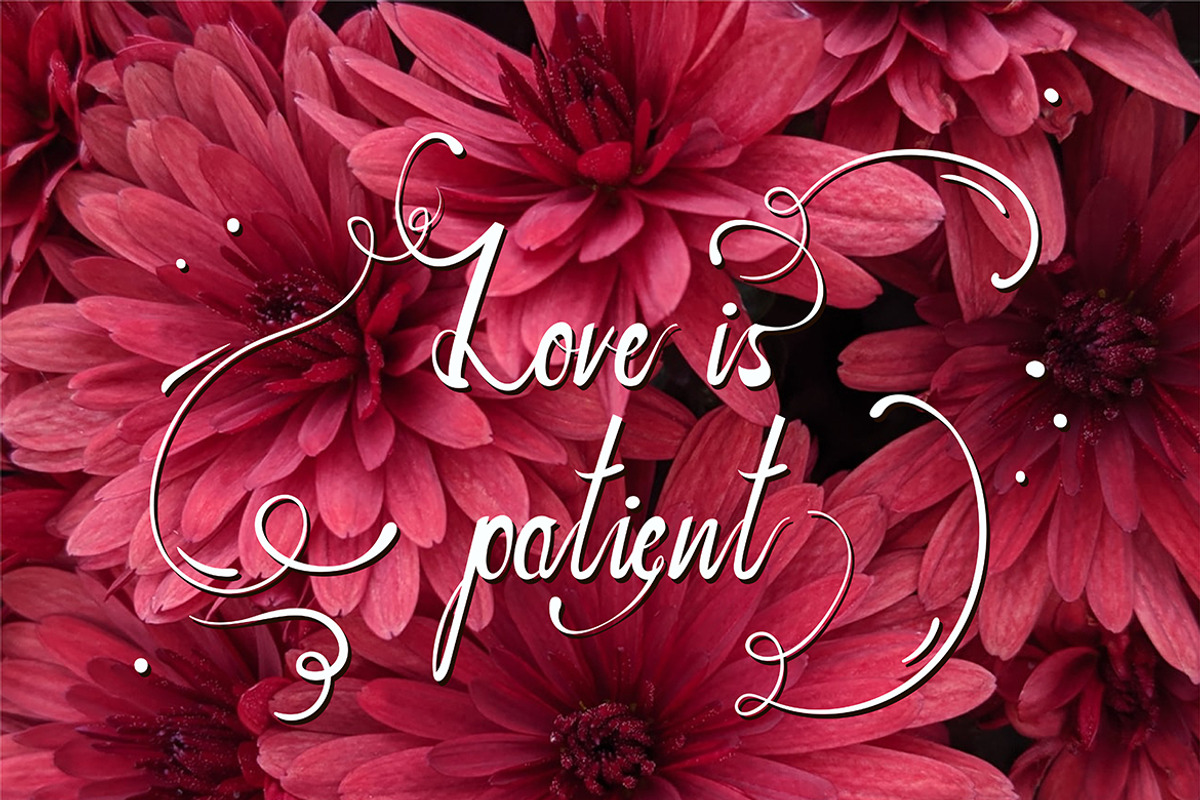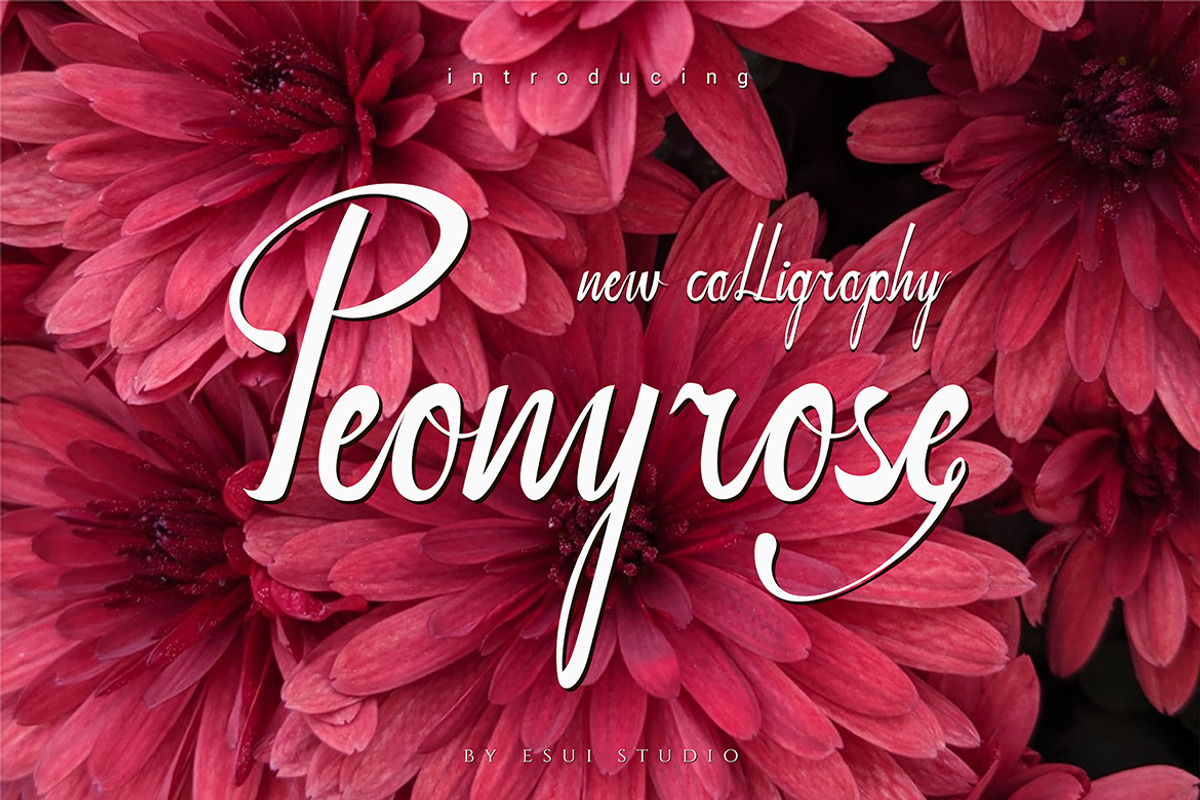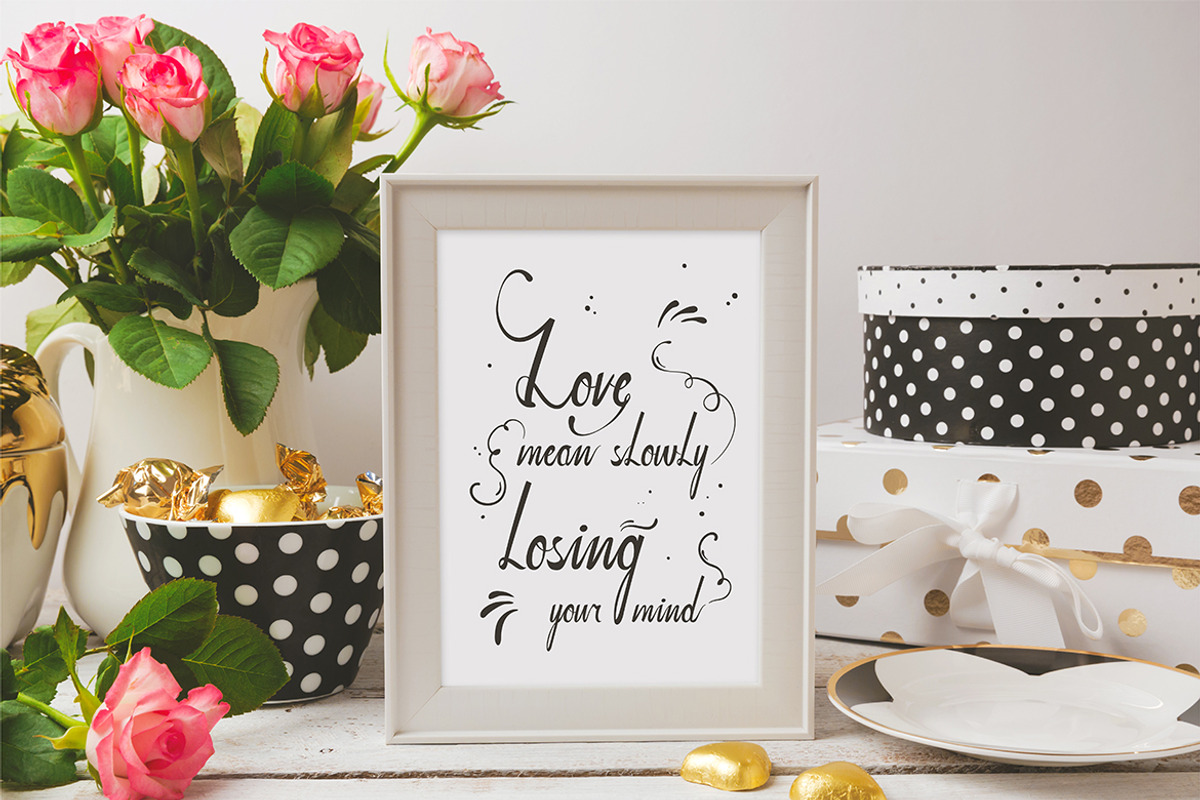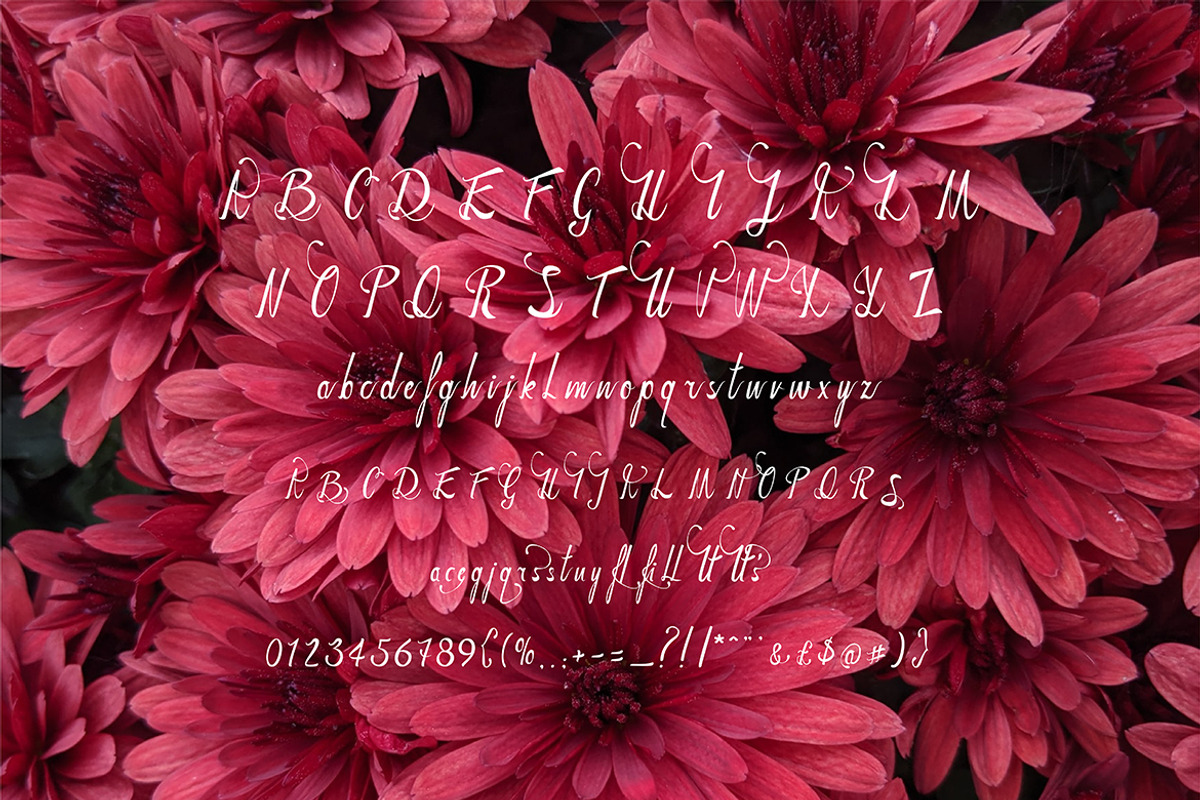
Peonyrose
Thanks for checking out Peonyrose! A fabulously fun yet elegant script font with tons of energy, allowing you to create beautiful hand-made typography in an instant. Peonyrose is guaranteed to make your text stand out - perfect for logos, printed quotes, invitations, cards, product packaging, headers and whatever your imagination holds.